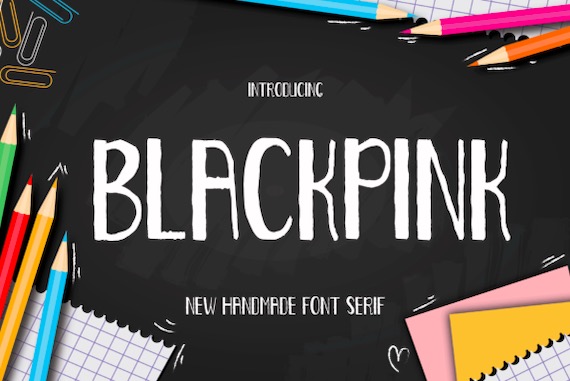
Blackpink Font was created and shared by MYdesign along with a gorgeous & unique style. Besides, it’s a great brush handwritten font that features a gorgeous display of hope.
Blackpink Display Brush Font